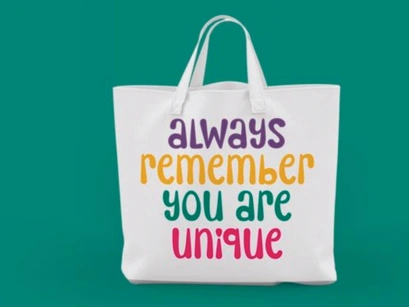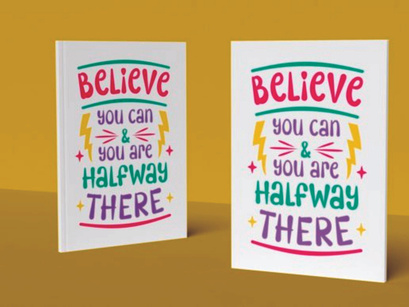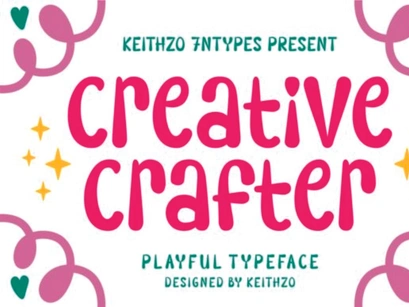
Creative Crafter is a friendly and neat display font. It embodies playfulness and authenticity and is the perfect choice for any children activity or school project.